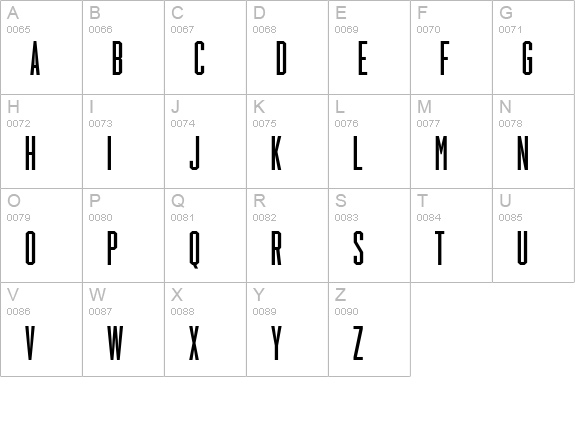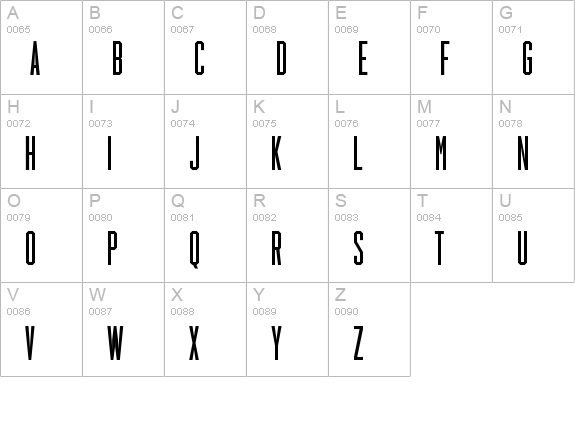
HeraldGothic-Bold Font Details
HeraldGothic-Bold is a strong, high-contrast variant in the HeraldGothic typeface family \xE2\x80\x94 well suited to headlines, attention-grabbing titles, and strong calls-to-action.
HeraldGothic-Bold font is a bold and commanding typeface that exudes strength and sophistication. Its sharp, angular edges give it a modern and edgy look, making it perfect for headlines, titles, and other eye-catching design elements. The sturdy letterforms of HeraldGothic-Bold make a powerful statement, while its bold weight ensures maximum impact. The best part? HeraldGothic-Bold font is available for free download at FontsMarket.com. You can easily add this striking typeface to your font collection without any cost, allowing you to use it in a wide range of personal and commercial projects. Whether you're designing a sleek branding campaign, creating attention-grabbing posters, or crafting impactful social media graphics, HeraldGothic-Bold font is sure to elevate your designs with its bold presence and modern flair. Download it today and unleash the power of HeraldGothic-Bold in your creative endeavors.